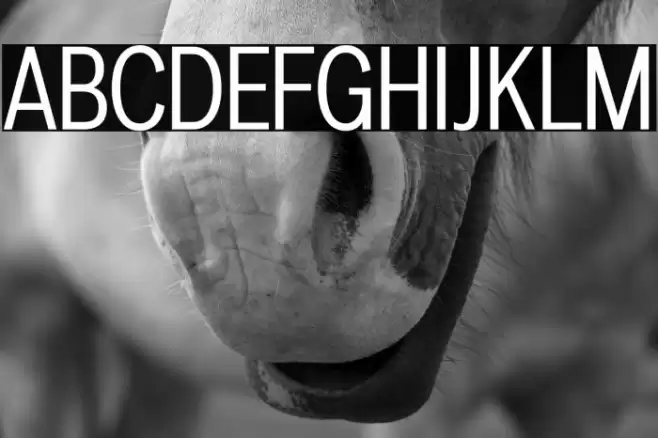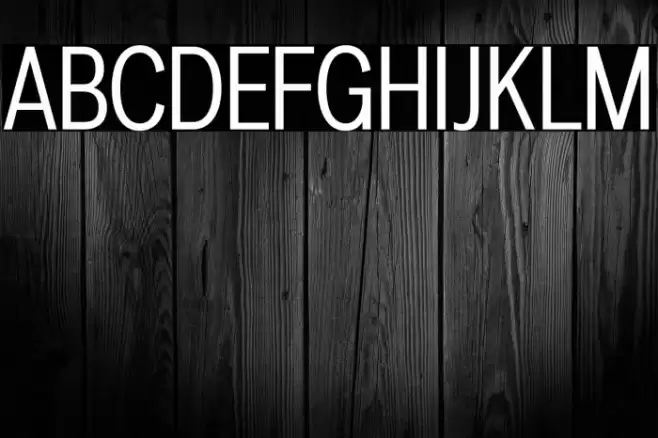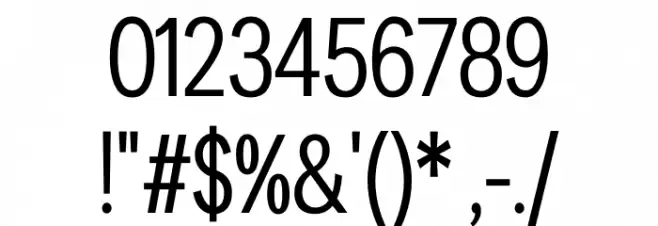
LT Amber Condensed Font
LT Amber Condensed Description
This font features a clean, modern sans-serif style with a condensed width, making it ideal for space-saving applications. The characters are uniform in stroke width, providing a consistent and professional appearance. The uppercase letters are tall and commanding, while the lowercase letters maintain a balanced and approachable look. The numerals are clear and easy to read, and the special characters are well-defined, ensuring versatility across various design needs. This font's simplicity and clarity make it suitable for both digital and print media.
A modern, condensed sans-serif font with uniform stroke width and clear readability from Uncategorized fonts.
- Font: LT Amber Condensed
- Proposed Projects: Ideal for branding, advertising, editorial design, and web interfaces where space is limited.